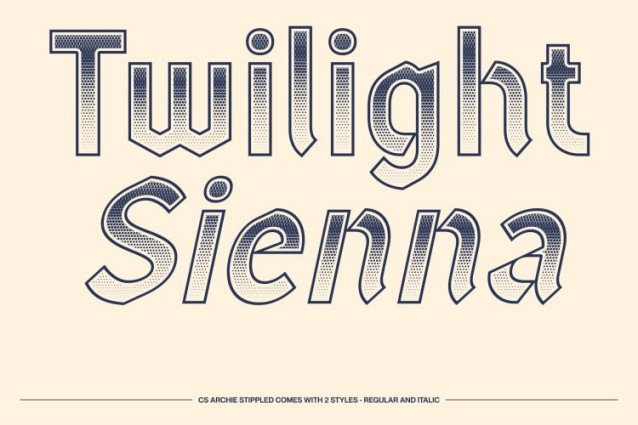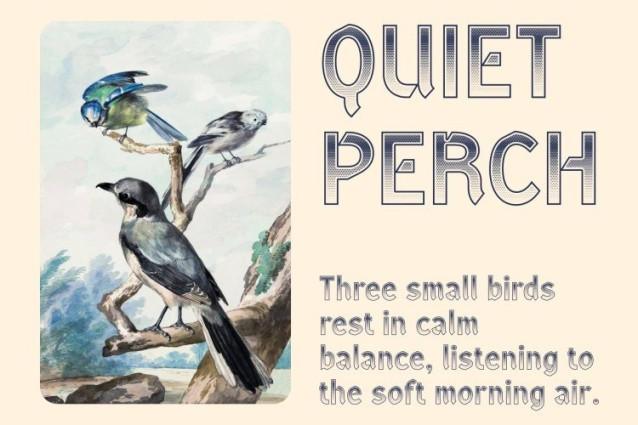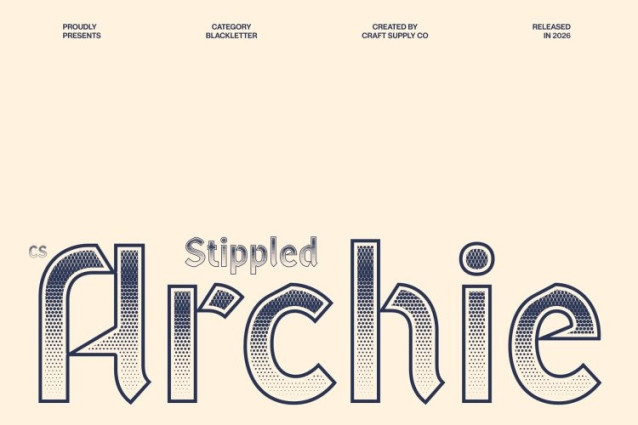
CS Archie Stippled Font
CS Archie Stippled Font This is a modern Blackletter display font that merges timeless Gothic elegance with bold contemporary power. Enhanced with a dense stippled texture inspired by traditional ink-dot and stippling illustration techniques, the font gains an artistic, handcrafted depth that enriches its dramatic character. The result is a commanding typeface that feels both historically grounded and visually modern.
Bold Forms with Textured Sophistication
Featuring prominent, assertive letterforms, this font creates a striking and authoritative impression. The stippled detailing adds dimension and vintage nuance, softening the strong strokes while preserving their dominance. This balance between bold structure and textured refinement delivers a sophisticated, high-impact aesthetic.
Designed for Prestigious and High-Impact Projects
Ideal for luxury branding, formal invitations, official documents, and high-profile promotional materials, ensures a memorable visual presence. Its blend of historical grandeur and contemporary styling makes it especially effective for designs that demand confidence, elegance, and distinction.
Authority, Prestige, and Artistic Depth
The modern Blackletter construction conveys authority and legacy, while the stippled finish introduces warmth and crafted authenticity. Every letter carries a sense of prestige and expressive strength, allowing your designs to stand out with bold sophistication and timeless impact.